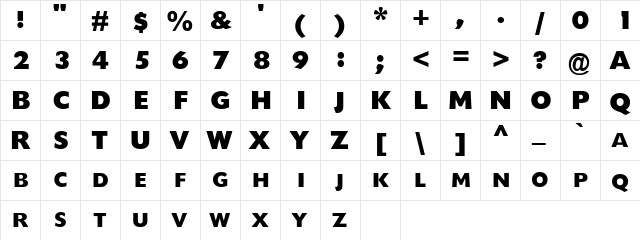
HeadlineNEWS Regular Font Preview
HeadlineNEWS Regular
Design Context for HeadlineNEWS Typeface
HeadlineNEWS offers clean, dependable letterforms without strong stylistic allegiance, making it a practical choice for designers who need flexibility.
Pro Tip: Pair HeadlineNEWS with a font of contrasting weight or personality to build a more expressive typographic hierarchy.